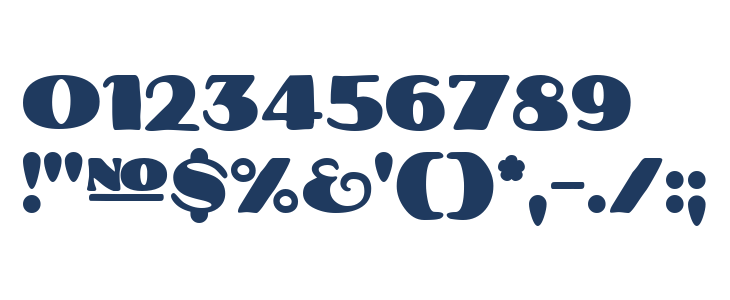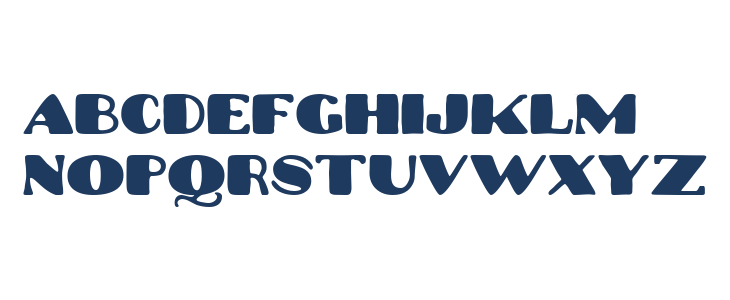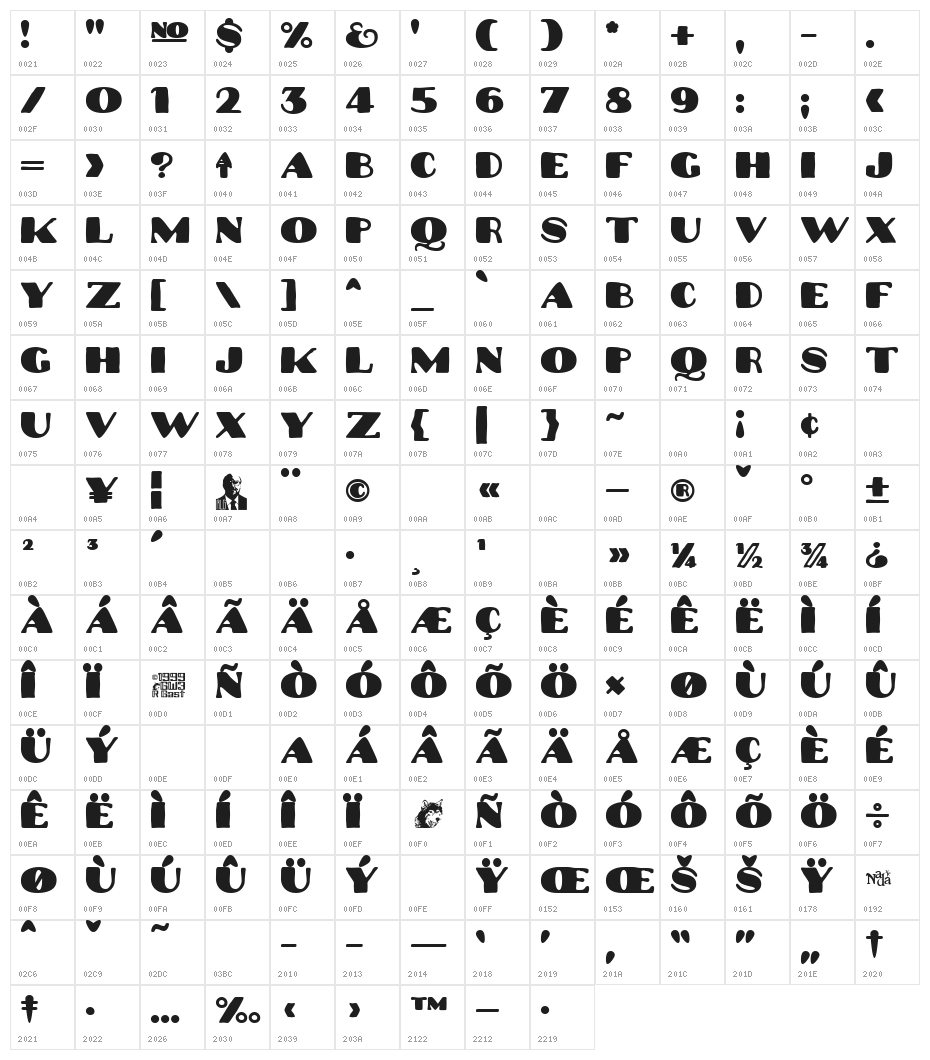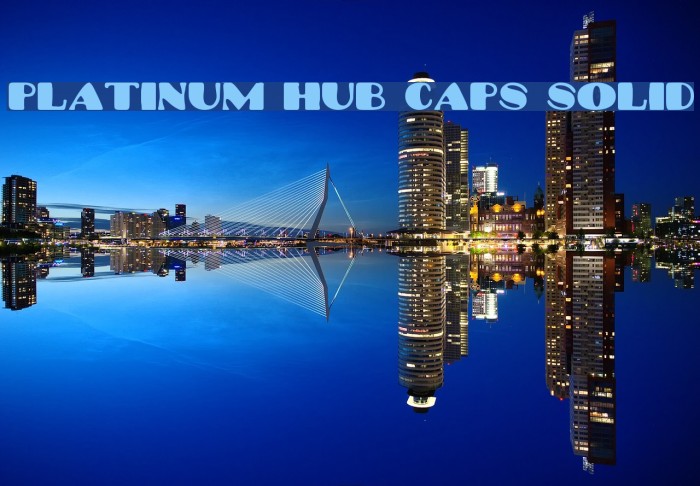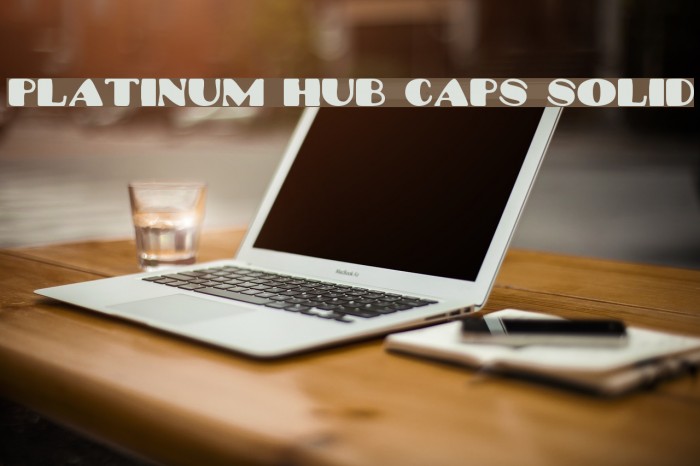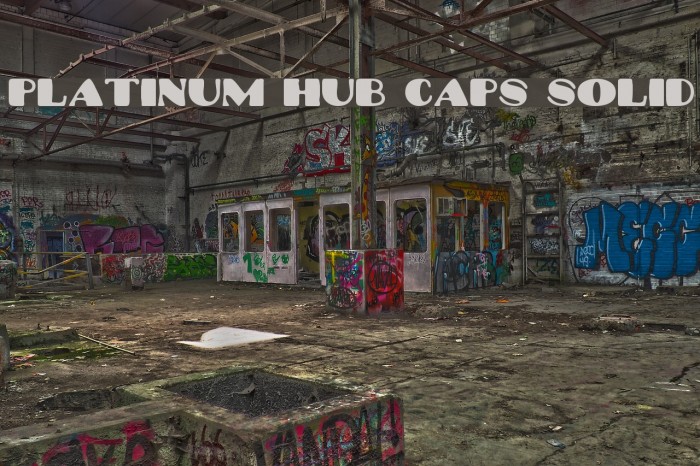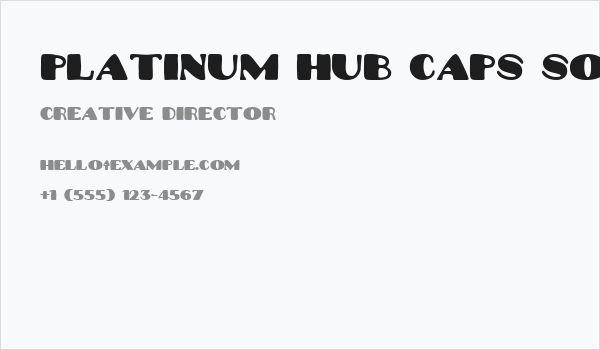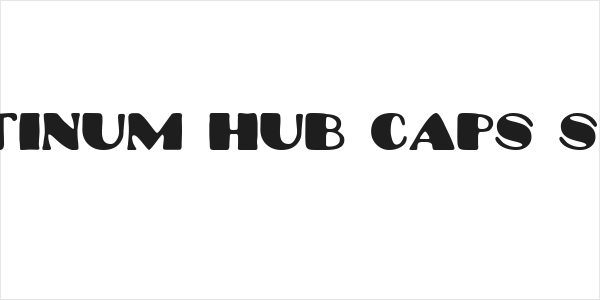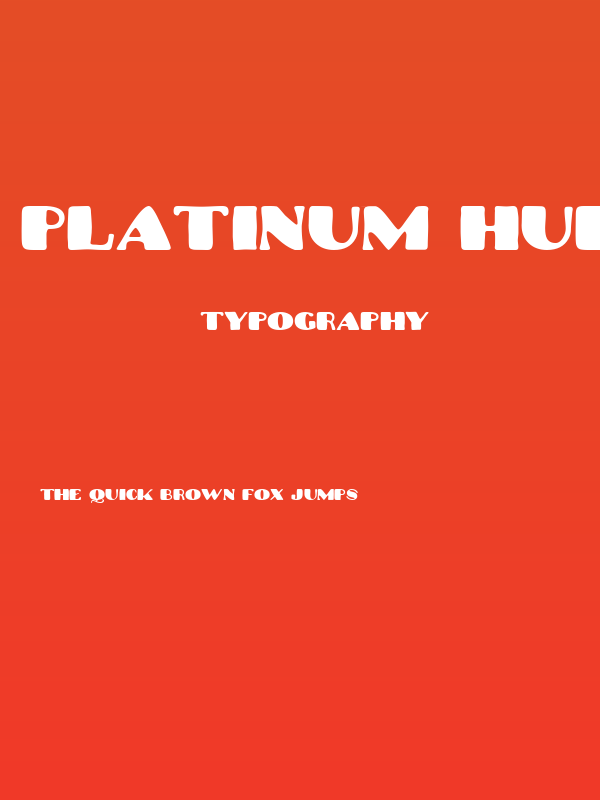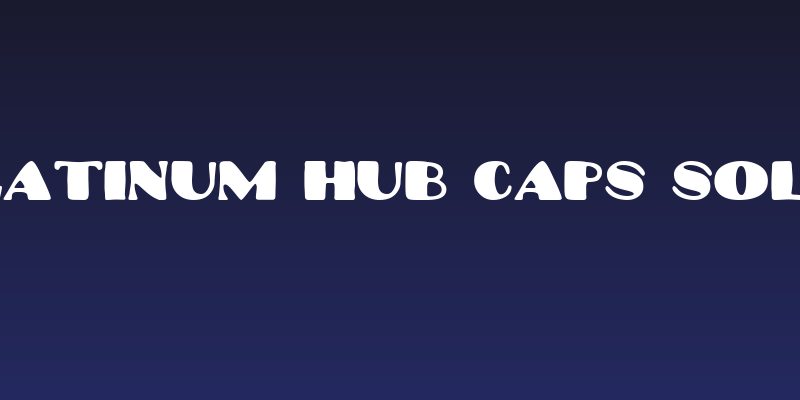
Platinum Hub Caps Solid Font
Platinum Hub Caps Solid Description
This font features a bold and playful design with a strong presence. The characters are thick and rounded, giving them a solid and robust appearance. The uppercase letters are particularly striking, with some characters incorporating unique flourishes and decorative elements, such as the tail on the 'Q' and the loop on the 'R'. The numbers are equally bold, maintaining the font's consistent weight and style. Special characters are creatively designed, adding to the font's overall whimsical and decorative feel. This font is ideal for projects that require a standout, eye-catching typeface.